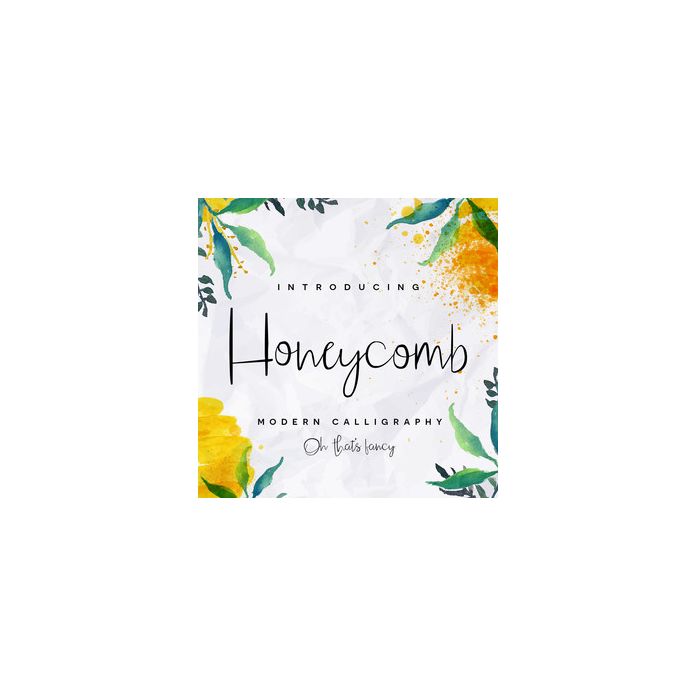
Honeycomb is a fun and flirty script with fat-to-thing brush strokes and an imperfect baseline to give it that hand crafted feel. Comes with a full set of capitals, lowercase, numerals, punctuation, and some international language support.